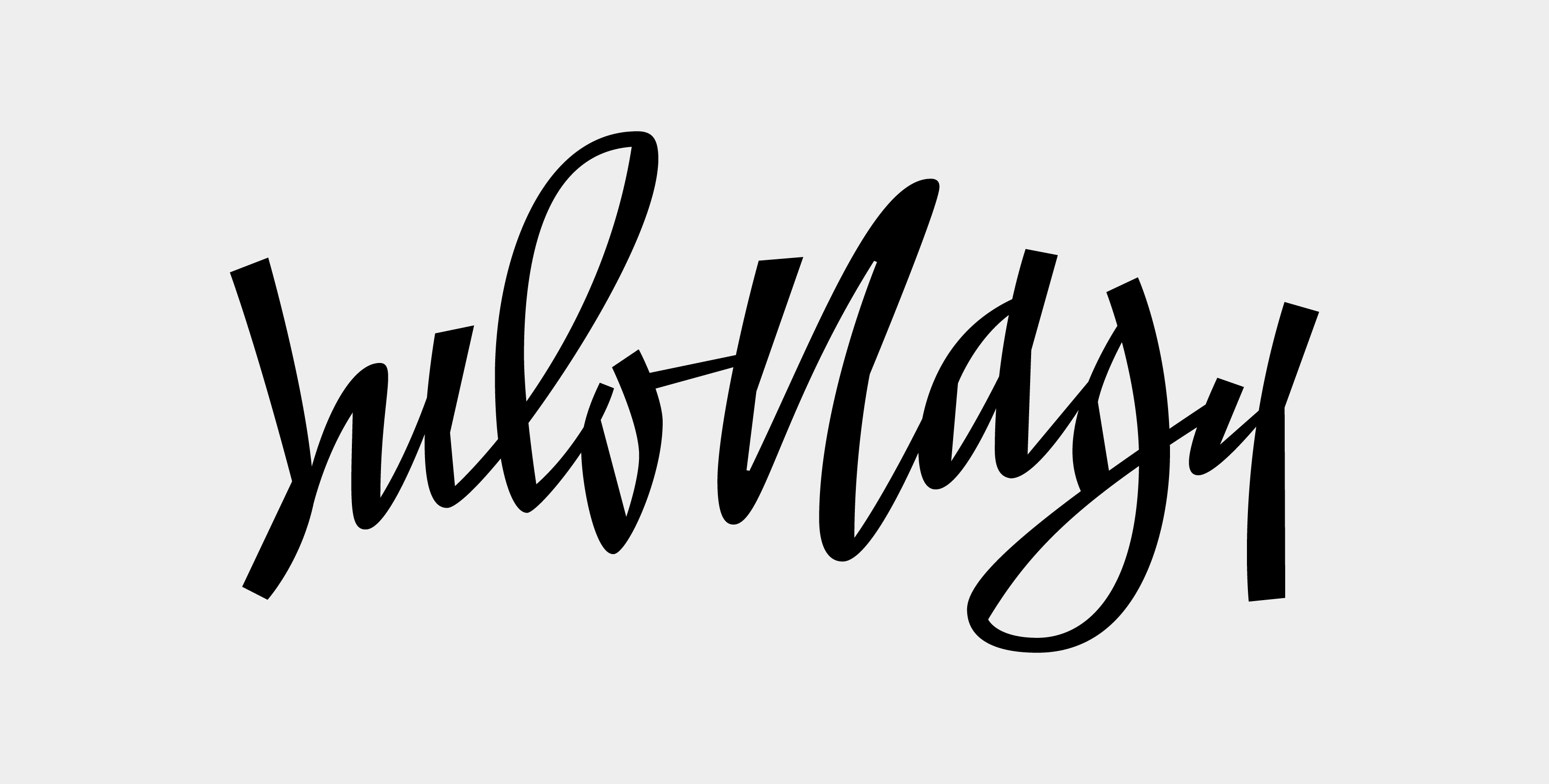
Julo Nagy
An expressive script logotype made for Julo Nagy, my teacher from the Academy of Fine Arts and Design in Bratislava. Even though it might resemble a personal signature, the style doesn't follow neither Julo’s nor mine handwriting, it is a pure experiment in letter construction and an exploration of stroke modulation in script lettering.